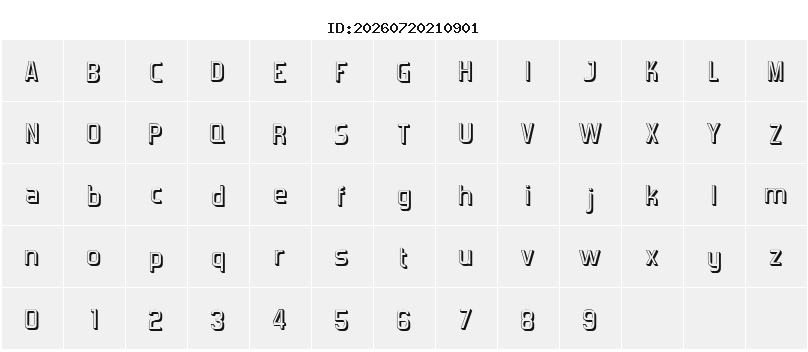
• Font Name: Forgotten Futurist Shadow
• Designer: Ray Larabie
About Forgotten Futurist Shadow.ttf
Forgotten Futurist Shadow.ttf is a modern, elegant sans-serif font designed for ultimate readability and visual harmony. Perfect for branding, headlines, web design, and print materials.